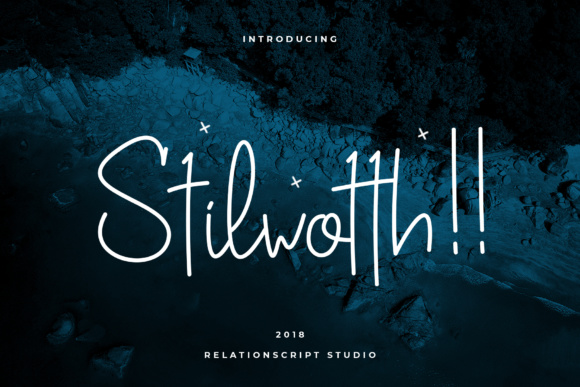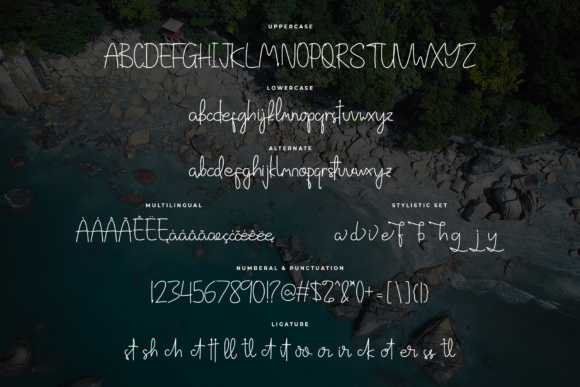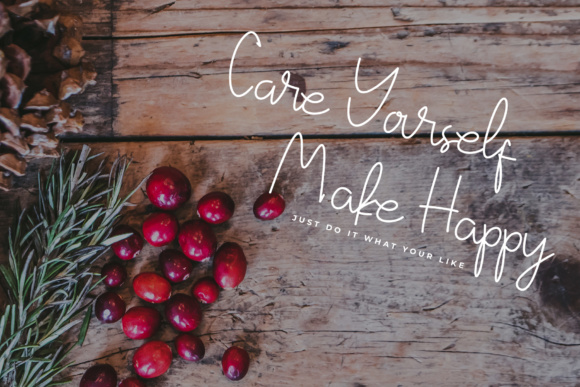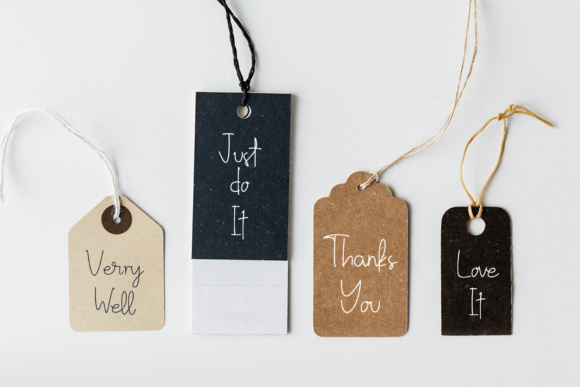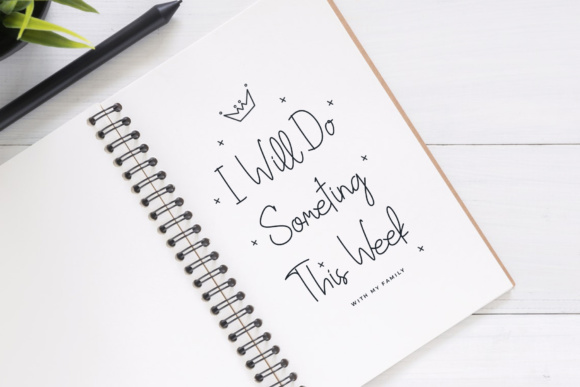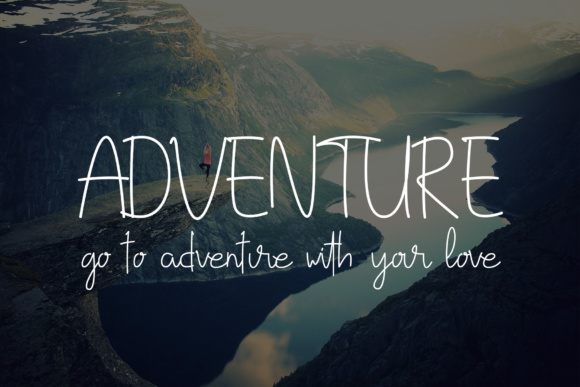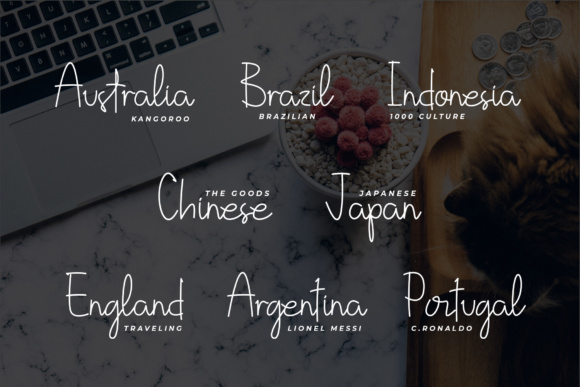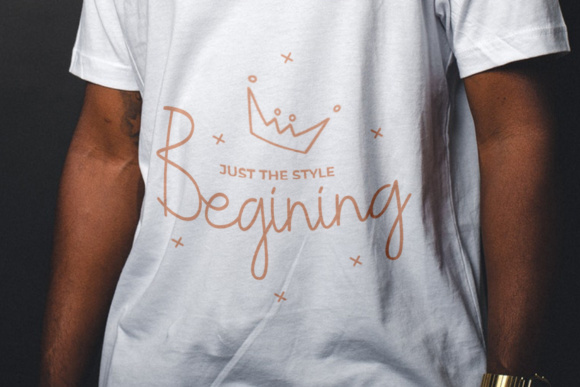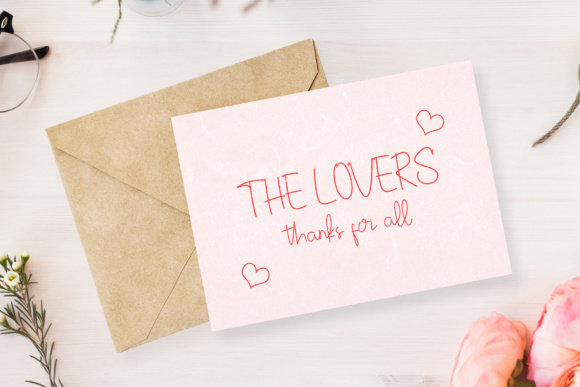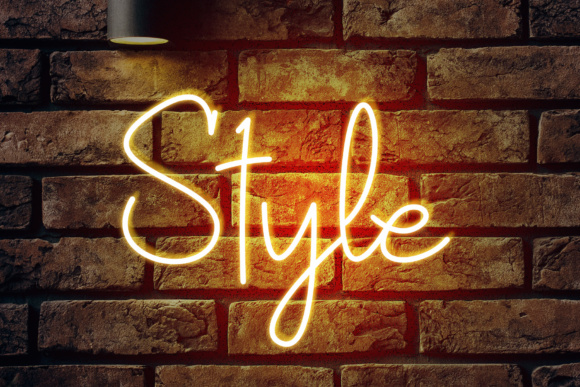
Stilwotth Font
About Stilwotth Font
Stilwotth is perfect to use for various purposes such as editorial designs, branding, art quotes, book covers/titles, posters, apparel designs, product packaging, labels, special events or anything that a need hand-drawn taste.